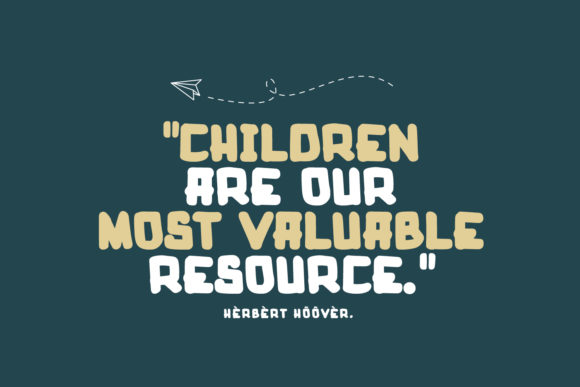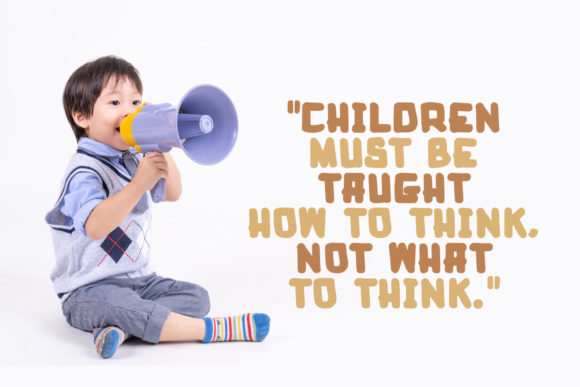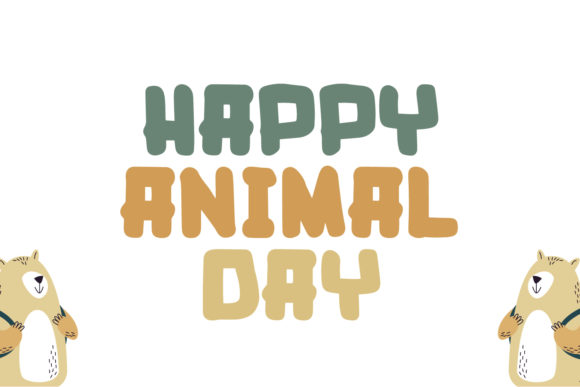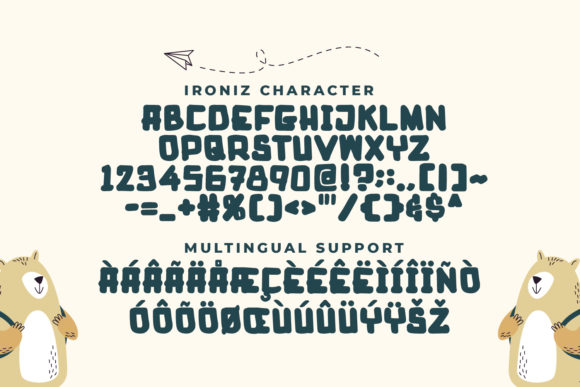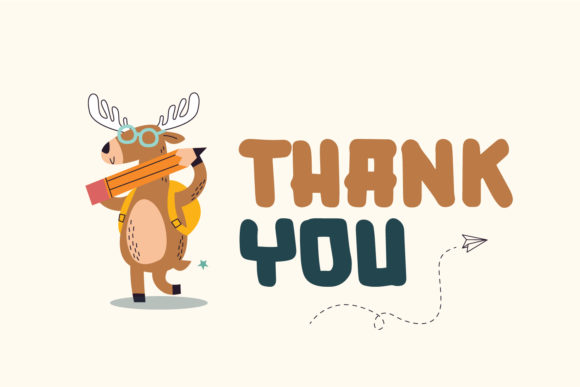
Introduction to Ironiz Font
As a designer, have you ever been stuck in a creative rut, struggling to find the perfect font to bring your project to life? We’ve all been there. But what if you could add a touch of whimsy and personality to your designs with just a few clicks?
Enter the Ironiz Font, a bold and playful display font that’s perfect for adding a splash of color and energy to your next creative project. With its chunky lettering and cartoon-like charm, this font is sure to make your designs stand out from the crowd.
As a valuable resource for designers, the Ironiz Font is available for free download and can be easily customized to fit your needs. Whether you’re working on a graphic design project, a logo, or even just a fun social media graphic, the Ironiz Font is a must-have addition to your design toolkit.
Key Features of Ironiz Font
- High-quality design resource for creative projects, perfect for adding a professional touch.
- Each font has a transparent background, allowing for easy layering and customization in your design.
- Available in various font sizes, with resolutions up to 1024×1024 pixels, ensuring crisp and clear display on high-resolution screens.
- Unique, modern design that can be used in a wide range of creative projects, from logos and branding to typography and graphics.
Honest Review: Ironiz Font
I recently had the chance to work with the Ironiz Font for a creative project and I must say, it’s been a game-changer. As a designer, I’m always on the lookout for high-quality design resources that can elevate my work, and the Ironiz Font definitely delivers.
What works well: ✨ The Ironiz Font is incredibly versatile, with a wide range of styles and weights that can be used to create a variety of visual effects. I also appreciate the fact that it’s available for free download, making it an excellent choice for designers on a budget. Additionally, the font is highly customizable, allowing me to tweak it to fit my specific design needs.
The Ironiz Font also features a transparent background, which is a huge plus for designers who need to create designs with complex backgrounds or layered elements.
- Wide range of styles and weights
However, there are a few limitations to be aware of: ⚠️ The font can be a bit difficult to read at small font sizes, and some of the more elaborate styles may not be suitable for very simple designs.
Overall, I’m thoroughly impressed with the Ironiz Font and would highly recommend it to designers looking for a high-quality design resource for their creative projects.
The Ironiz Font is a versatile design resource that offers a high-quality, free download for various creative projects. Its unique style and transparent background make it an ideal choice for designers seeking a distinctive look.
Tips for Getting the Most Out of Ironiz Font
To maximize the impact of the Ironiz Font, consider the following tips:
- Combine the Ironiz Font with other design elements, such as graphics or textures, to add depth and dimension.
- Use the transparent background to create a sense of layering and depth in your design.
Common Use Cases for Ironiz Font
The Ironiz Font is ideal for a range of creative projects, including:
- Branding and marketing materials
- Graphic design and visual arts